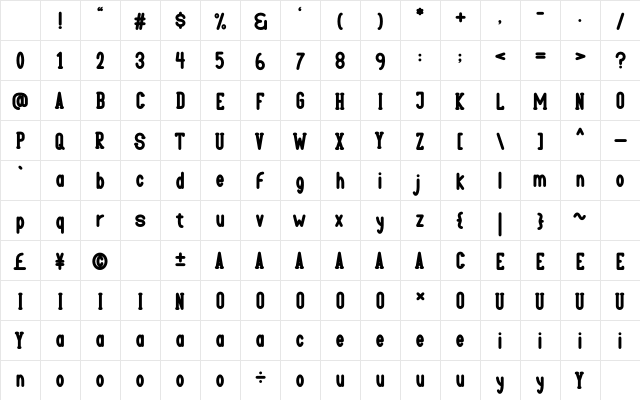
Complete LOVI Bold glyph index. Displaying only characters natively supported by LOVI Bold font.
LOVI is a composed and adaptable typeface that performs quietly and consistently across a wide range of design contexts. Its bold stroke weight gives it real presence on the page.